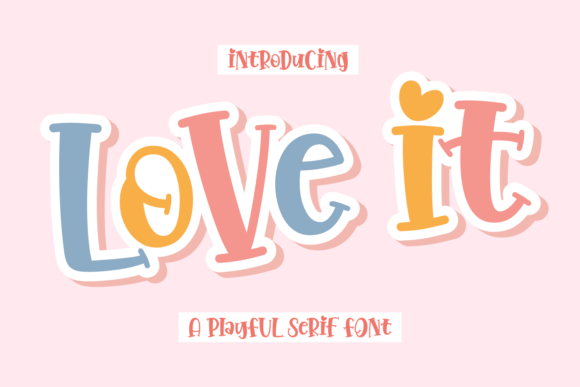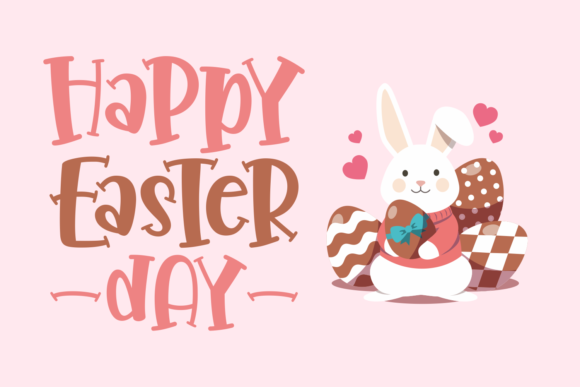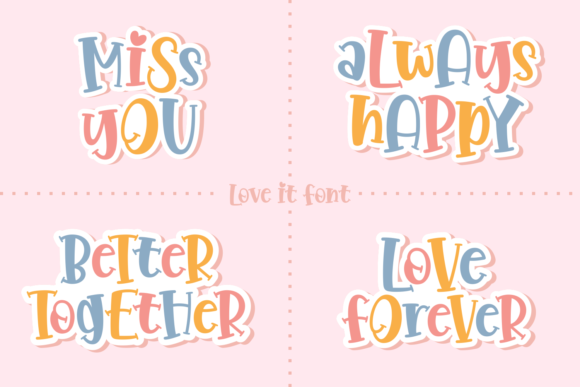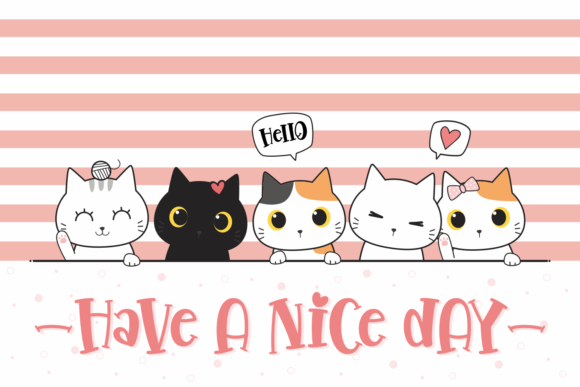
Love It Font
Love It is a cute and charming display font. Whether you use it for cartoon related designs, children games or just any creation that requires a lovely touch, this font will be an amazing choice.